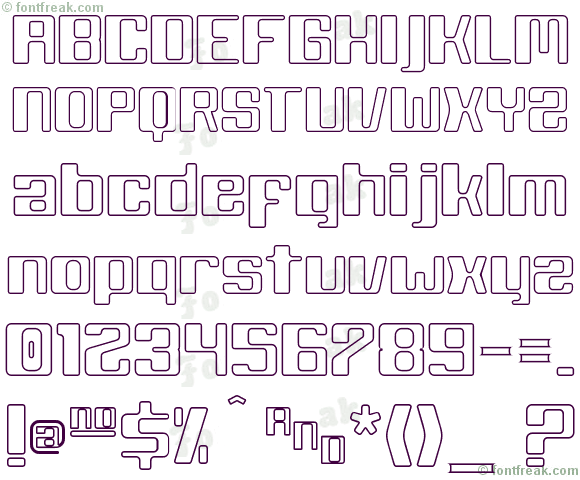
White Wolf
About White Wolf
The White Wolf font, created by Greywolf Webworks in 1999, is a striking display typeface that captures attention with its unique visual character. This font features a distinctive, bold design that combines elements of both modern and traditional styling. With a consistent stroke weight and minimal contrast, the White Wolf font showcases clean lines and geometric shapes, making it versatile for various applications. The spacing is deliberate, allowing for readability while maintaining an artistic flair, and the overall aesthetic embodies a sense of strength and elegance.
Ideal for creative projects, the White Wolf font is particularly effective in design settings such as movie posters, where it can evoke a sense of adventure and intrigue. It also works well for branding elements of outdoor and nature-related businesses, making it a great choice for logos and product packaging. Additionally, its unique presence makes it suitable for book covers, especially in the fantasy genre, and can add a whimsical touch to event invitations, such as birthday parties or themed gatherings.
What sets the White Wolf font apart is its ability to blend boldness with elegance, providing a unique typographic solution that stands out in a crowded design landscape. Whether you are crafting an engaging marketing campaign or adding a personal touch to your creative work, the White Wolf font is a compelling choice that will leave a lasting impression.